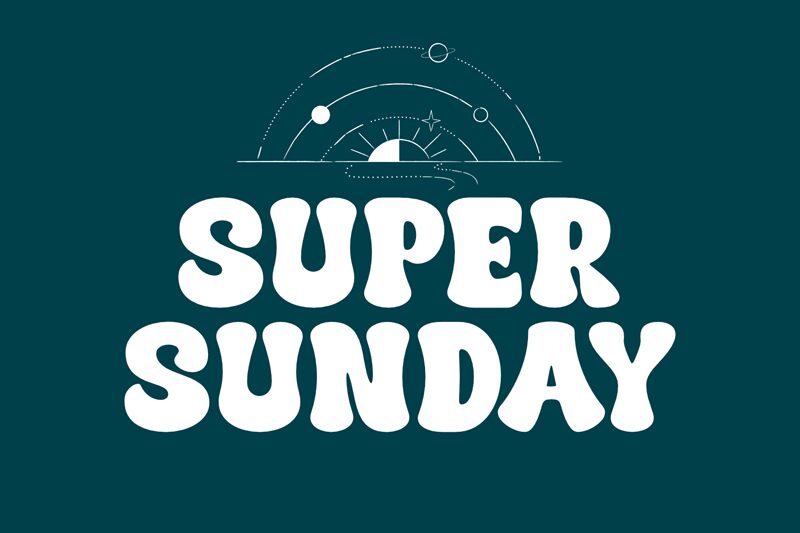
Super Sunday
Super Sunday, designed by fsuarez913, is an extra-bold display font with a groovy style that perfectly encapsulates the leisure of a relaxing Sunday with a nostalgic twist. Its curvaceous characters and fluid design exude an aesthetic appeal that is both playful and bold, making it ideal for projects that require a standout typeface with character and energy.
The font's extra-bold weight ensures maximum impact in visual communication, while its groovy style lends itself to creative endeavors that aim to evoke the vibrant spirit of past eras. Super Sunday is versatile enough for branding initiatives, eye-catching invitations, dynamic posters, or adding an unmistakable personal touch to social media content.
Embrace the charming vivacity of Super Sunday and let it transform your creative projects into captivating pieces that resonate with audiences seeking something out-of-the-ordinary yet delightfully familiar.